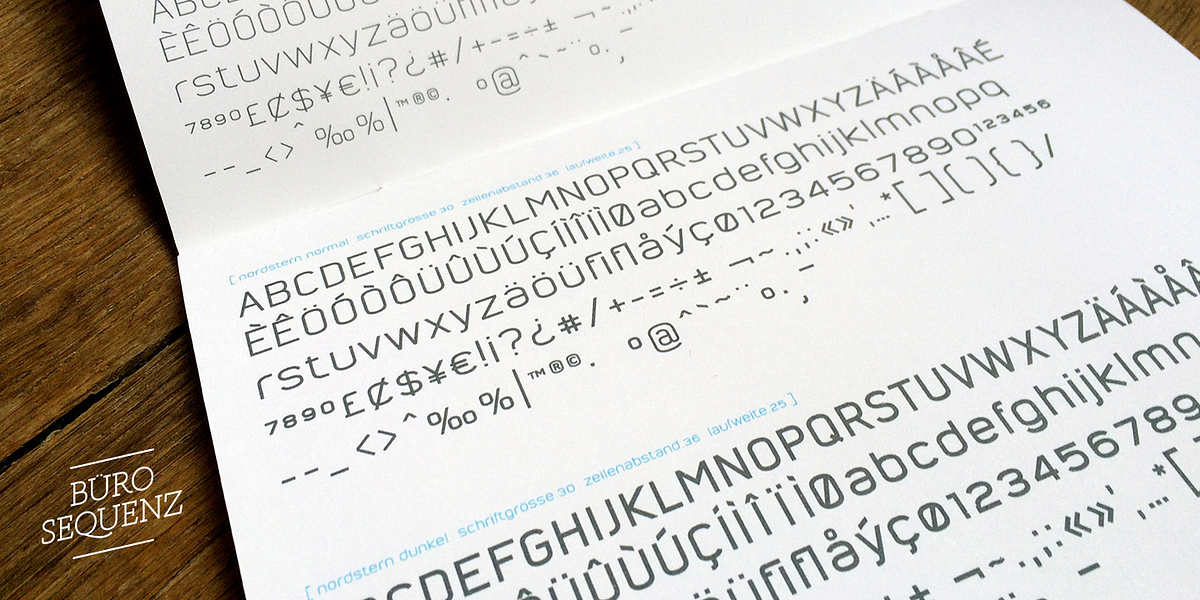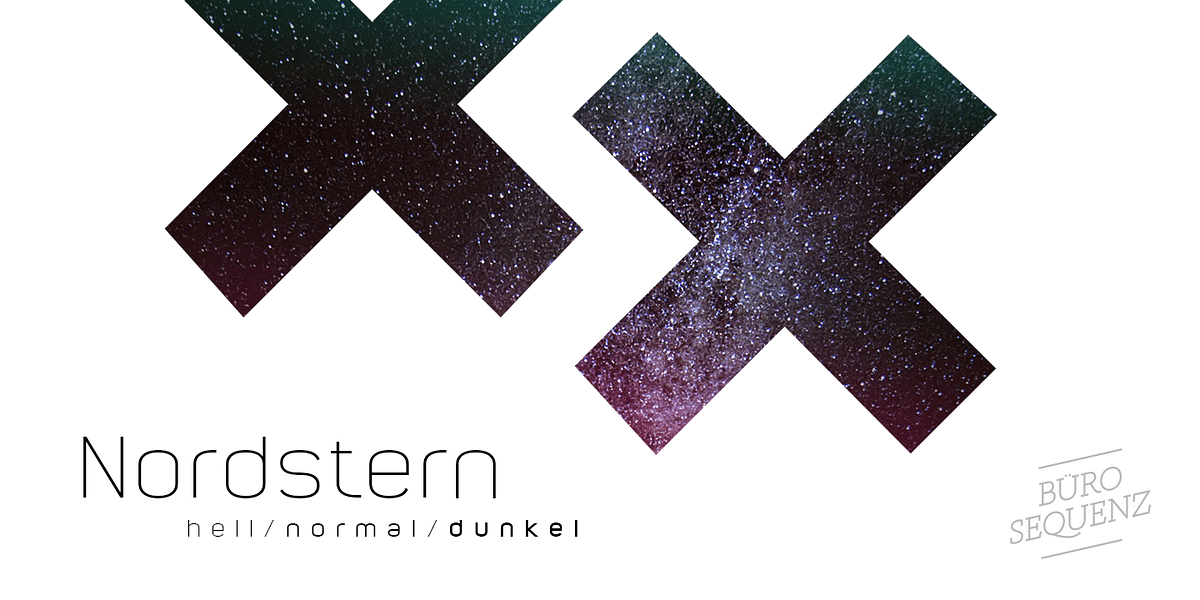
Nordstern
Nordstern is a geometric sans-serif typeface characterized by its spurless letterforms and open shapes. It's designed to be highly legible with a generous x-height that improves readability in both print and digital contexts. The font comes in three weights, allowing for flexibility in design applications.